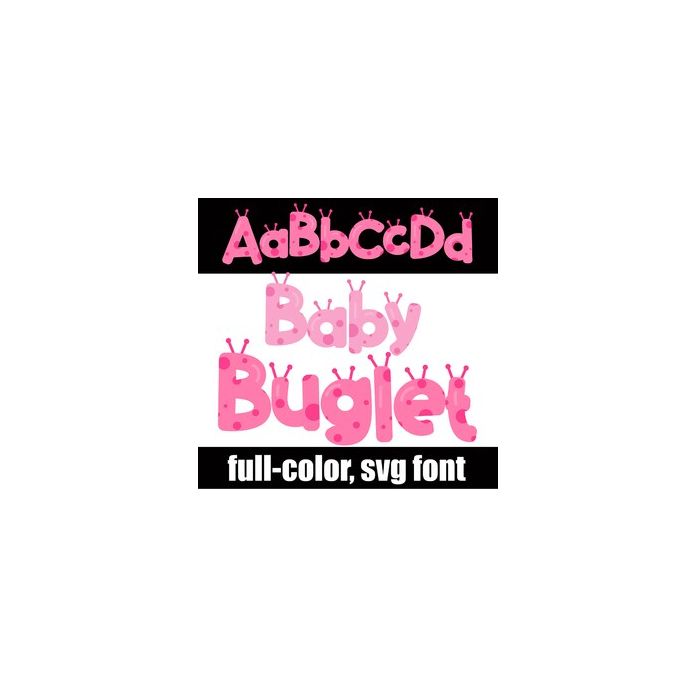
This full-color font features pink, bug-like lettering. There is an alt case w/ additional colors you can access through your system or Silhouette's glyph map.